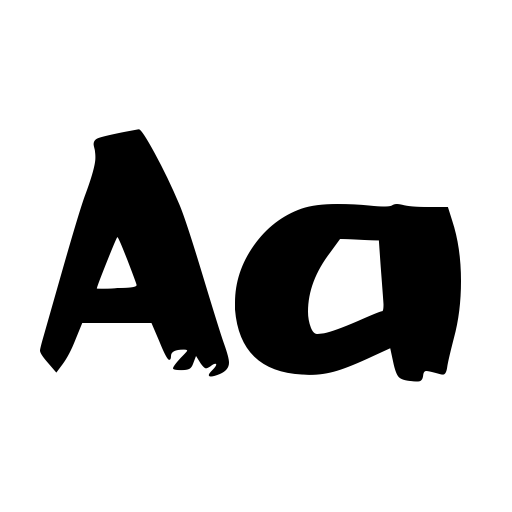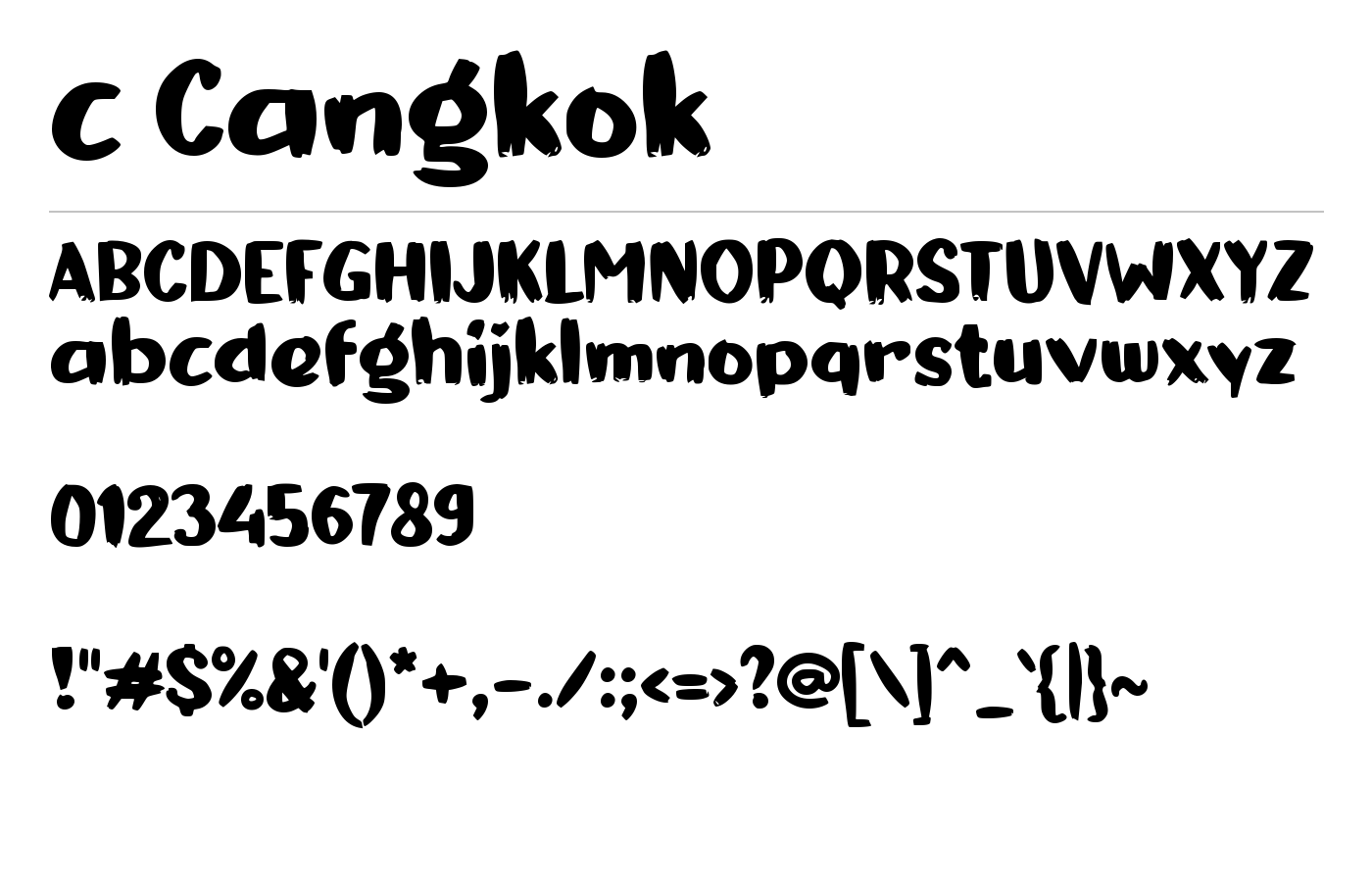
C Cangkok is a bold, playful sans serif font with a hand-drawn, brush-like style that brings a casual and friendly vibe. Its moderately wide letterforms and lively irregular edges make it ideal for creative and informal contexts, where a fun and approachable tone is desired. This font works wonderfully for logos, posters, children’s materials, and any design needing an energetic, personal touch.
c Cangkok Font
About c Cangkok Font